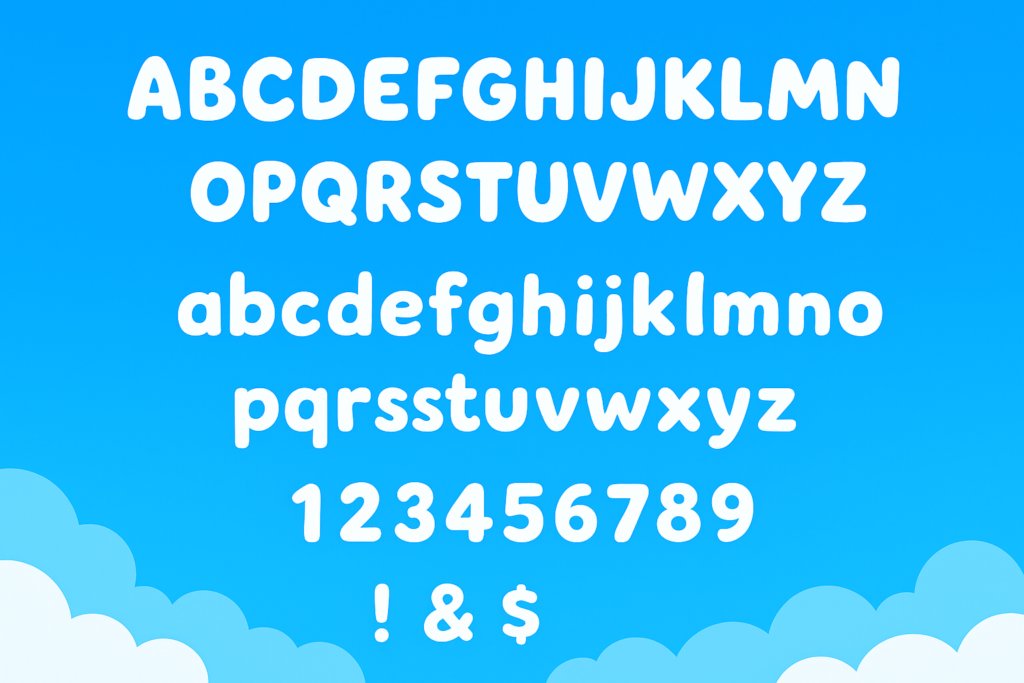
The Bluey Font is the influential typeface of the popular Australian animated show Bluey, which has recently gained significant market popularity. The Bluey Font’s delightful nature has successfully attracted a global audience, which has led to its widespread popularity among designers and its fanbase.
What is the Bluey Font
The title font and iconic Bluey logo are not a standard retail typeface; instead, they are tailor-made. But it is closely similar to the font Hello Headline created by Veneta Rangelova and published by DearType. Bluey introduced an endearing tale about the Blue Heeler puppy and her relatives to television audiences in 2018 and collected enormous viewership. The typography in the show serves as the ideal match to reinforce its joyful and family-centric atmosphere.
The font makes a striking impression through its smooth shapes along with gentle contours that fit perfectly into children’s media applications and creative branding initiatives.
Features of Bluey Font
1. Playful & Friendly Style
The font is round and bubbly, which can be seen as a manifestation of fun and childish innocence. It is friendly and easy to get close to because of its curvy shapes and absence of sharp edges.
2. Bold and Readable
The heavy lines make it very present and easy to read, even when small. Made to shine where clarity is needed, as in titles, logos, and kid-centered branding.
3. Whimsical Proportions
Letters are not very thin or tall and have a hand-drawn, organic effect. This gives it a personality and does not make it monotonous like conventional typefaces.
4. Rounded Terminals and Edges
All the letters have smooth, rounded terminals, promoting their smooth, friendly feel. This is in line with the light texture of Bluey.
5. Versatility in Children’s Media
Works really well with children’s books, cartoons, toys, and educational resources. The balance of the typeface between playfulness and readability makes it practical in a logo and in longer texts.
Applications of the Bluey Font
Given its unique style and engaging appearance, the Bluey Font is highly versatile and can be used across various design projects, including:
- Branding and Merchandise
Businesses targeting children or family-friendly markets can use Bluey-inspired typography to create engaging logos, merchandise, and promotional materials.
- Educational Resources
Teachers and educators can incorporate the font into learning materials, worksheets, and classroom decorations to make education more visually appealing to young learners.
- Party Invitations and Decorations
Birthday parties, baby showers, and themed events can benefit from the whimsical charm of the Bluey Font in invitation designs, banners, and decorations.
- Digital Content and Social Media
Content creators can leverage the font’s friendly appearance for YouTube thumbnails, Instagram posts, and children’s website designs.
- Personal Projects and DIY Crafts
Parents and hobbyists can use Bluey-inspired fonts for scrapbooking, custom t-shirts, and homemade greeting cards.
Alternatives to the Bluey Font
Heyam
A fan-inspired creation by FG Studios that draws inspiration from the show’s ambiance. Notably, ‘Heyam’ mimics the rounded, hand-drawn allure of the Bluey lettering but with its distinct nuances.
Magic Sound Font
The magic sound font is a fan-made comic display font influenced by the logo of the Bluey cartoon. With Imagex’s stylish magic font, you can add sophistication to your designs.
KG Happy Solid
This font has a whimsical, hand-drawn aesthetic that makes it a strong candidate for Bluey-inspired projects.
Bubble Bobble Font
A rounded, bubbly font that shares the friendly, playful nature of the Bluey Font.
Baloo Font Family
A free Google Font with a thick, rounded, and slightly informal aesthetic, making it a great alternative.
Fredoka One
Another free Google Font, Fredoka One, has a bold, rounded appearance that captures the essence of fun typography.
Conclusion
The Bluey Font was designed to reflect the whimsical and imaginative nature of the show from the very beginning. The creative team consulted with the designers in order to design a typeface that attracts children and adults alike. The outcome is a childish, bespoke font that best captures the heart and character of Bluey.